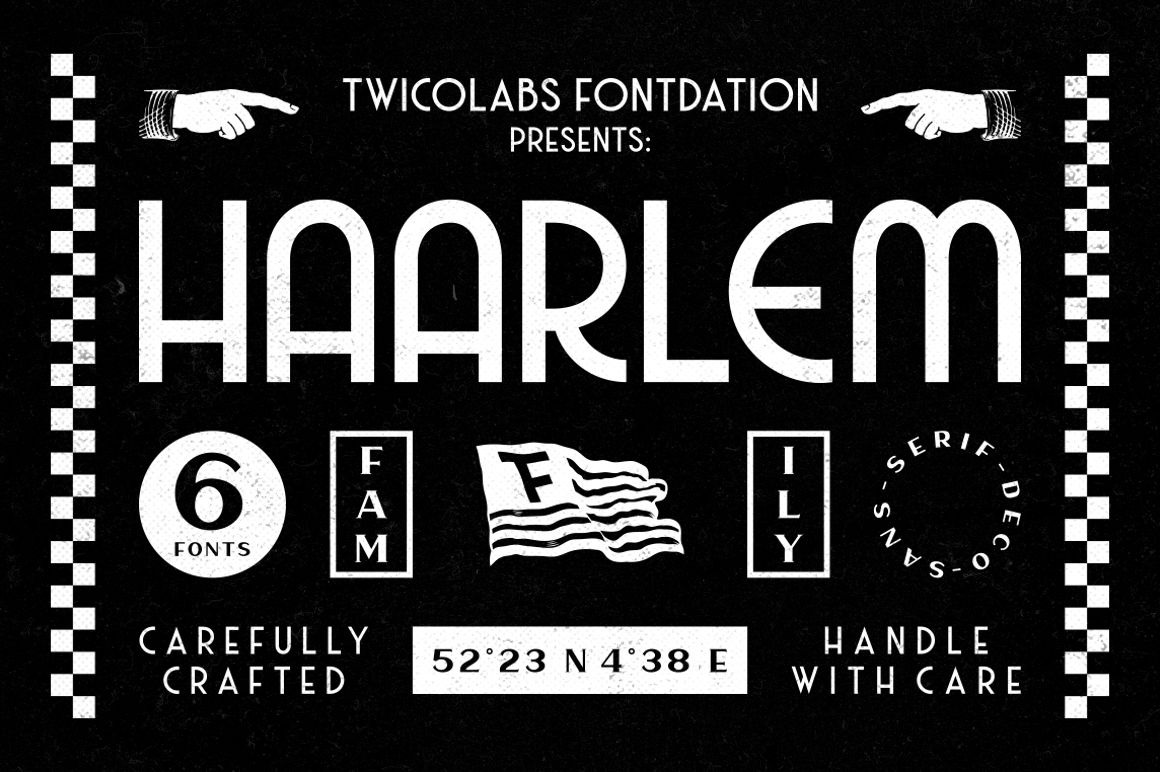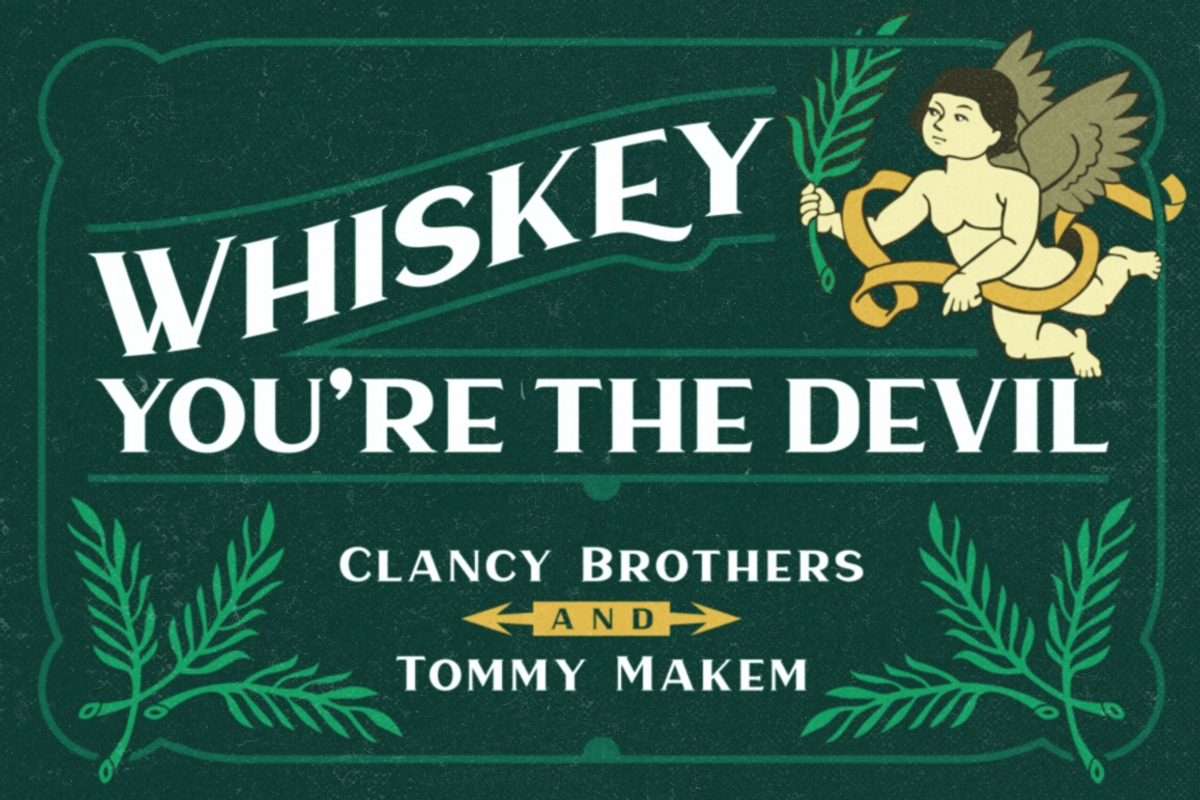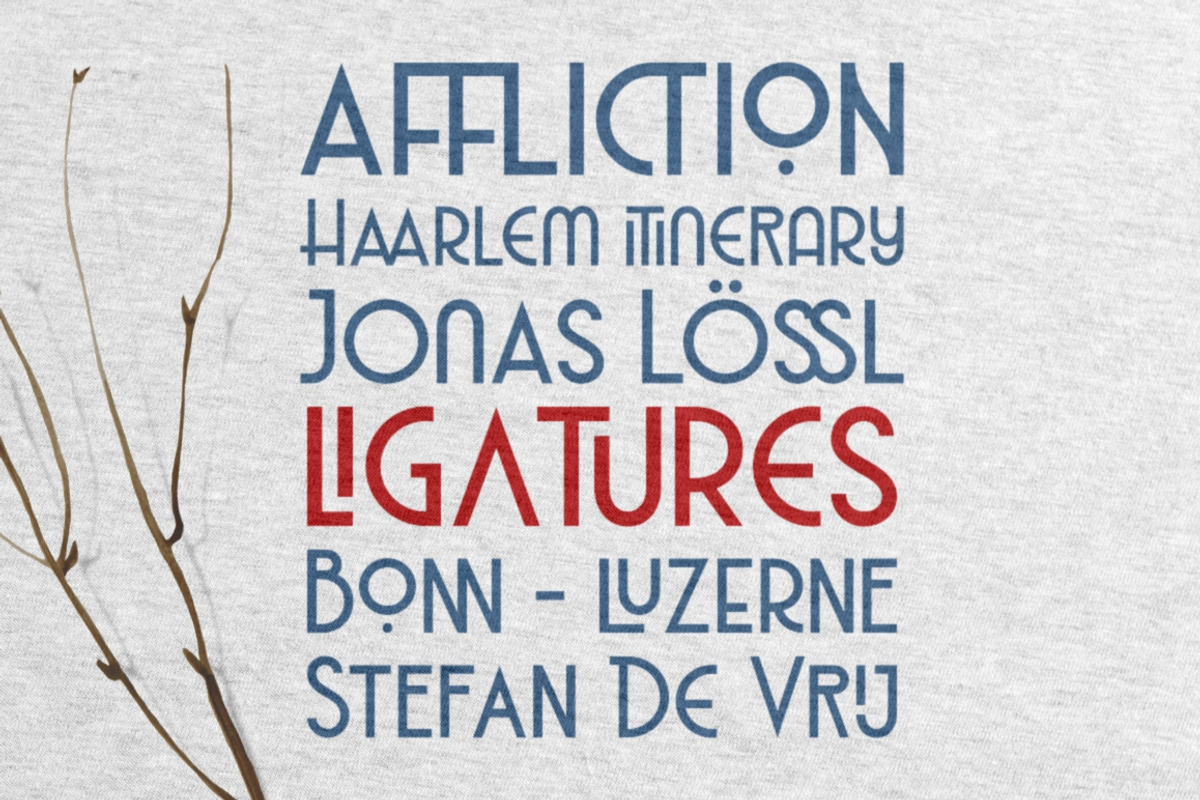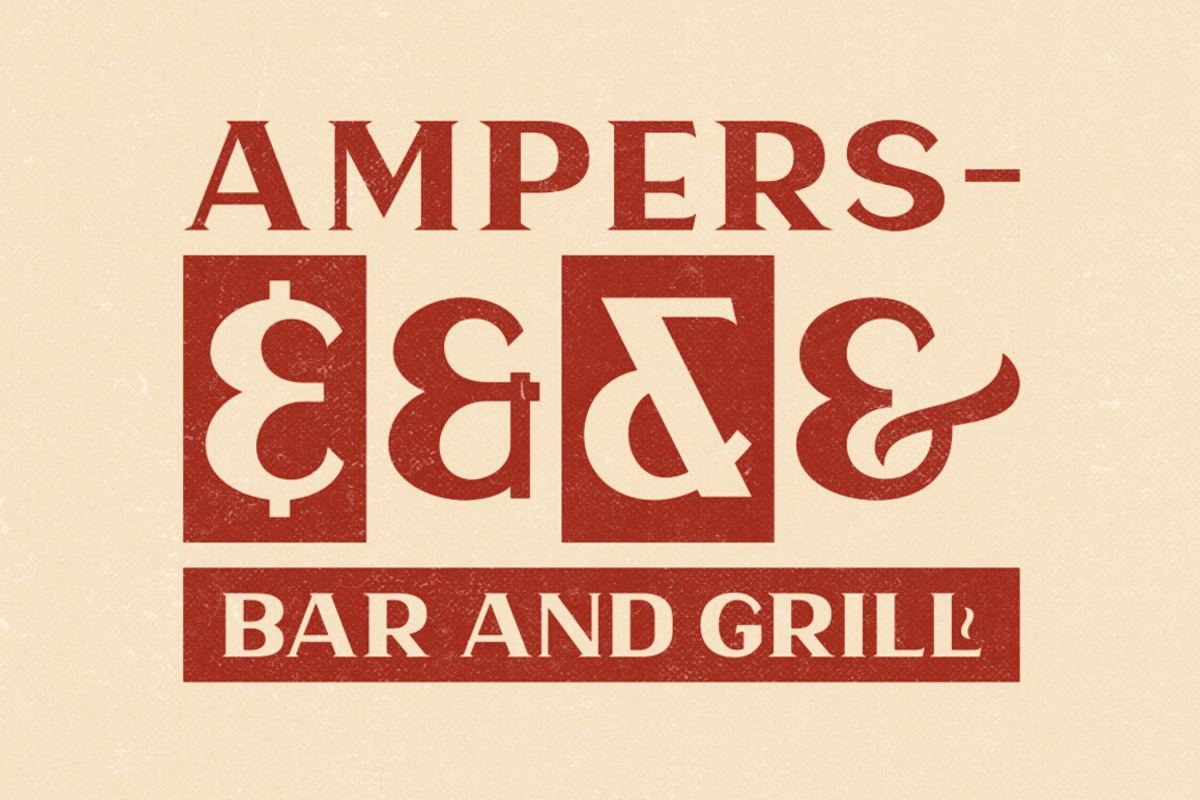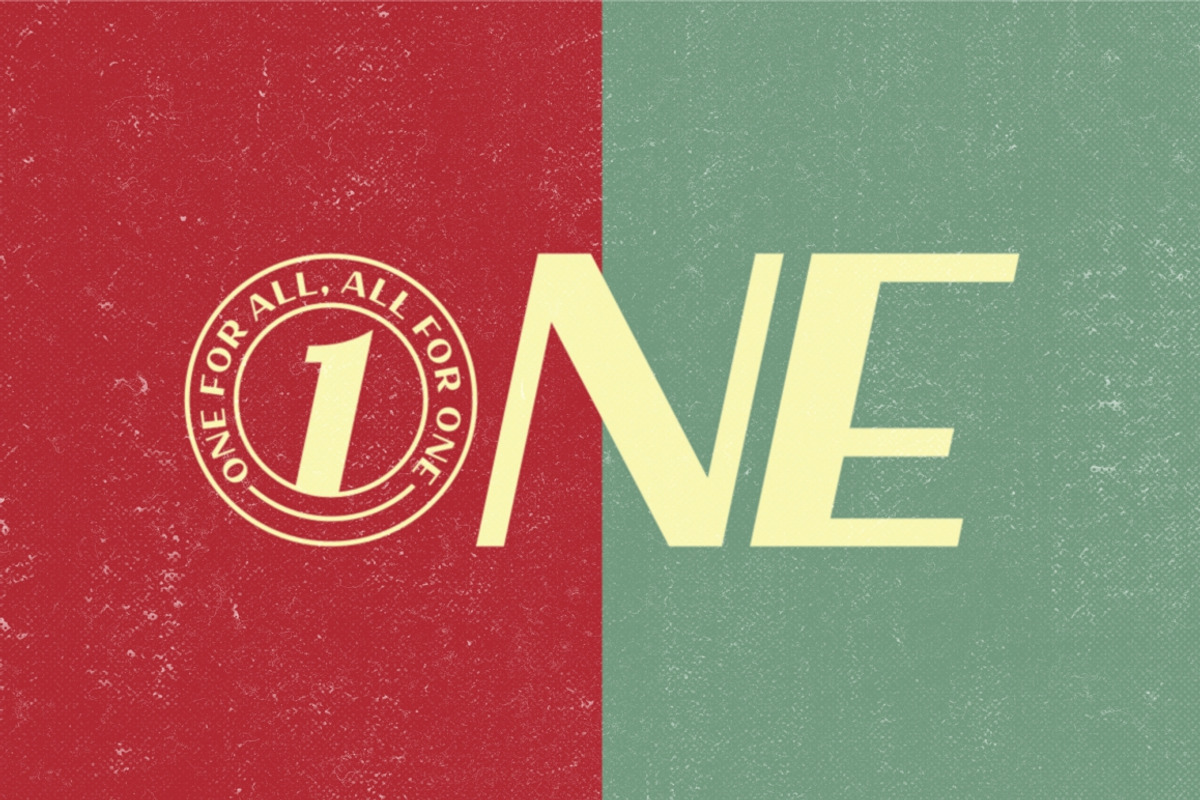
Haarlem Family | 3 in 1 Fonts
Haarlem Family is a pack of our versatile classic/vintage fonts. Inspired by the lettering that are used in various old advertisements. Suits best for any kind of designing projects.